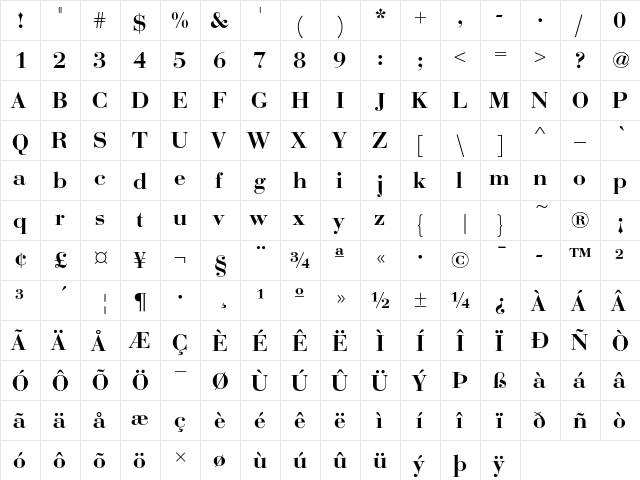
Bauer Bodoni D Demi Bold Font Preview
Bauer Bodoni D Demi Bold
Design Context for Bauer Bodoni D Typeface
Bauer Bodoni D offers clean, dependable letterforms without strong stylistic allegiance, making it a practical choice for designers who need flexibility. The heavy weight commands attention and anchors typographic hierarchies.
Pro Tip: Pair Bauer Bodoni D with a font of contrasting weight or personality to build a more expressive typographic hierarchy.